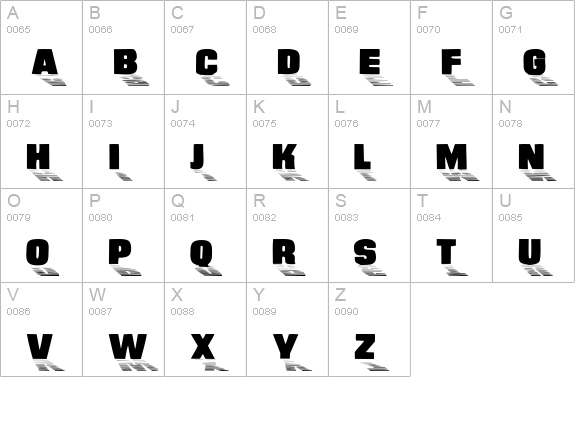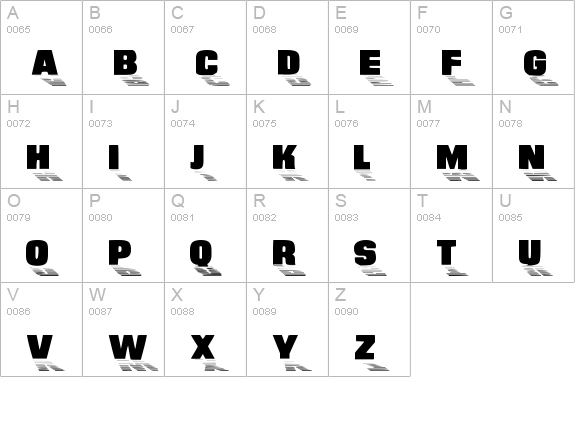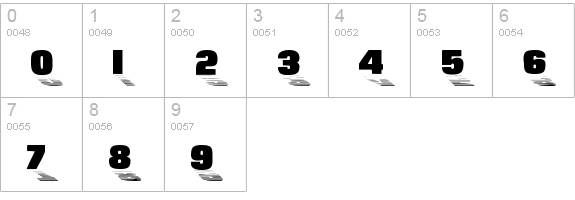
SundownDisplayWide Font Details
SundownDisplayWide is a stunning and versatile display font that exudes elegance and sophistication. With its sleek lines and bold presence, this font is perfect for making a statement in any design project. Whether you are creating branding materials, invitations, posters, or anything in between, SundownDisplayWide is sure to leave a lasting impression. The best part? This gorgeous font is available for free download at FontsMarket.com! Don't miss out on adding this exceptional typeface to your collection and elevate your designs to new heights with SundownDisplayWide.